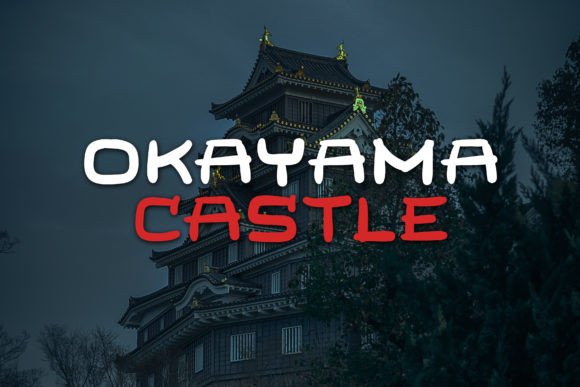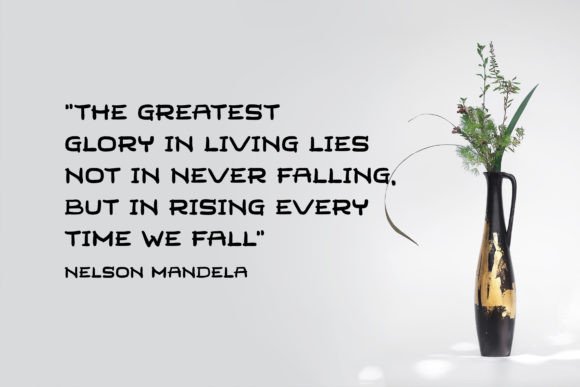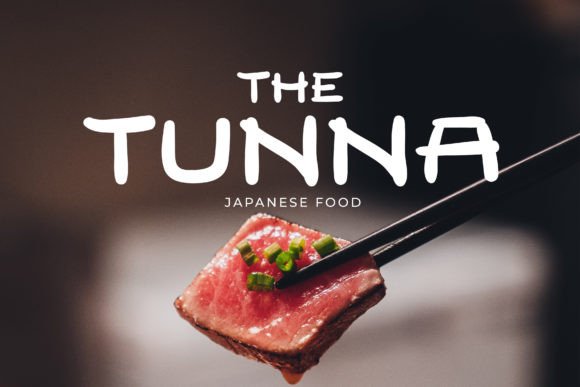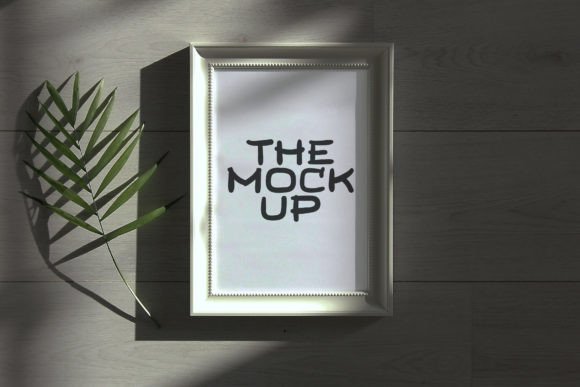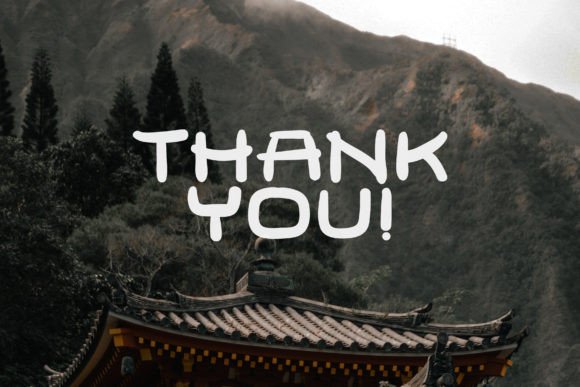
Introduction to Remy Leaves Font Font
Fonts play a crucial role in design, and the Remy Leaves Font font is a typeface that brings both character and versatility to any project. Whether you’re working on a branding project, a website, or a print design, the Remy Leaves Font font offers a unique style that can elevate your work.
Remy Leaves is a Japanese-inspired display font of excellent quality.
The Remy Leaves font is suitable for those who like Japanese culture This font is also suitable for those who have Japanese restaurants, Japanese clothing brands, Japanese films, and business needs related to Japanese culture.
Key Features of Remy Leaves Font Font
Why Choose Remy Leaves Font Font?
The Remy Leaves Font font is more than just a typeface – it’s a design tool that helps you communicate your message with style and clarity. Its unique character set and versatile design make it suitable for a wide range of applications, from elegant invitations to bold headlines.
With its carefully crafted letterforms and balanced proportions, the Remy Leaves Font font ensures readability and visual appeal across all mediums.
What makes Remy Leaves Font font special?
The Remy Leaves Font font stands out with its unique design, exceptional readability, and versatility across various design applications.